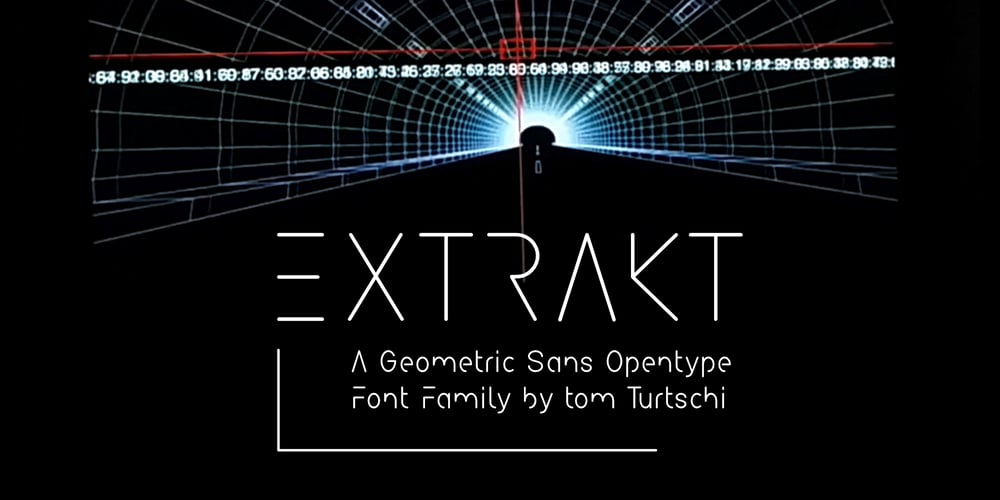
Extrakt Font Family was designed by Tom Turtschi and published by Hof3. Extrakt contains 12 styles and family package options. The font EXTRAKT references the grotesque fonts and elementary typography as developed at the Bauhaus (ITC Bauhaus, Futura).Extract originated from a child’s game: How many matches are needed to write the word EXTRAKT? (https://hof3.com/arbeitsweise/extrahieren)In the development of the typeface “EXTRAKT”, the design principle of reducing the letters to the most necessary strokes was central.In addition to the reference to Bauhaus, EXTRAKT also has a futuristic feel. (“The Expanse”)